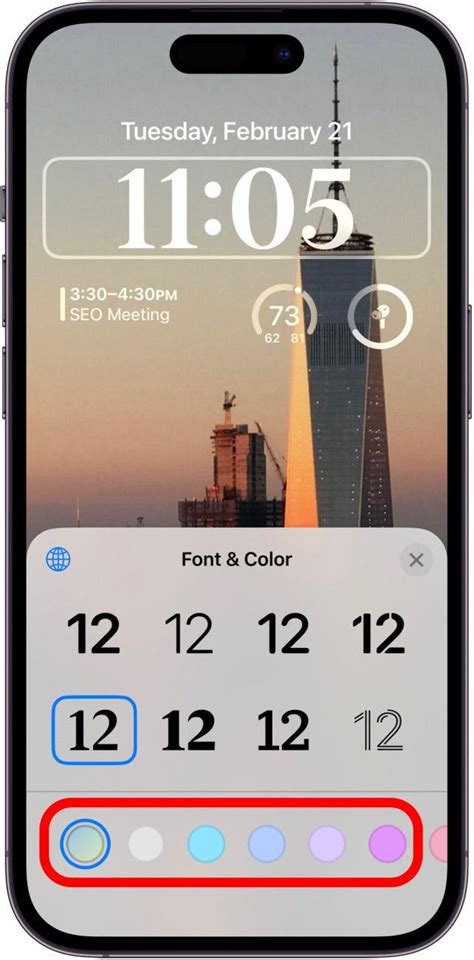
Ios 16.1.1 Clock Font. Here’s how you can customize your lock screen font on your iphone. If you are changing an old default apple wallpaper,.
Web how to change the lock font on lock screen on iphone. Web from the small menu that is presented, you will see eight different font options, alongside different colours you can choose from. Web after doing the software update (ios 16.1.1) the clock in my lock screen is in very bold big numbers. Pick a new clock font. The day, and date has not changed but the time is in a ridiculously big font. Follow the steps below to help you with the process. Web how to change iphone lock screen font. The rest is ok so i don’t want to lower the other front. Here’s how you can customize your lock screen font on your iphone. This opens the new lock screen gallery.
Web from the small menu that is presented, you will see eight different font options, alongside different colours you can choose from. This opens the new lock screen gallery. Web from the small menu that is presented, you will see eight different font options, alongside different colours you can choose from. Web after doing the software update (ios 16.1.1) the clock in my lock screen is in very bold big numbers. Follow the steps below to help you with the process. The day, and date has not changed but the time is in a ridiculously big font. Pick a new clock font. The rest is ok so i don’t want to lower the other front. Web how to change the lock font on lock screen on iphone. Here’s how you can customize your lock screen font on your iphone. Web how to change iphone lock screen font.